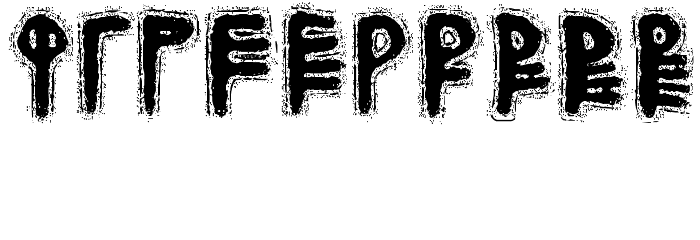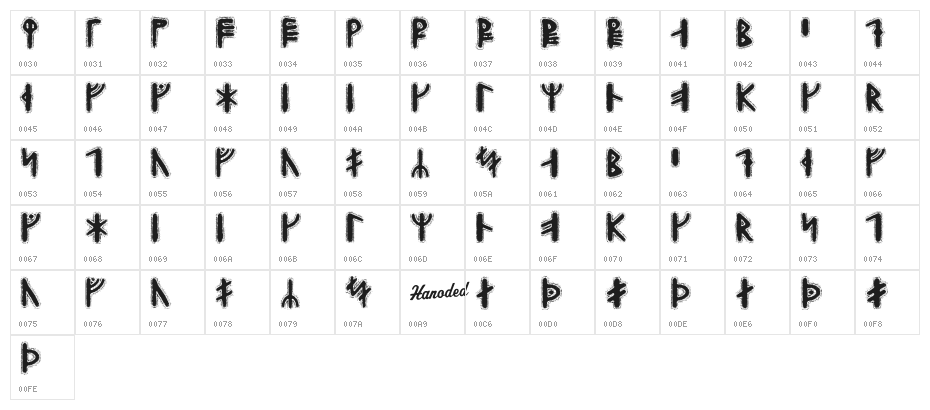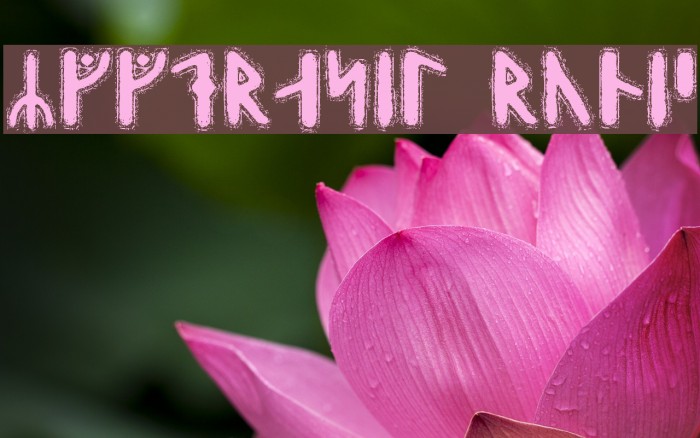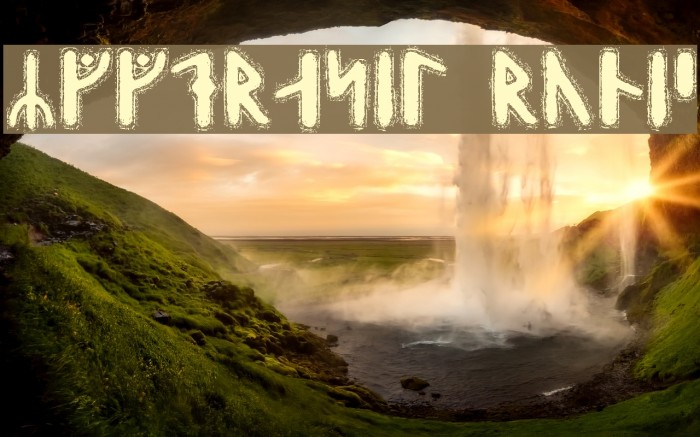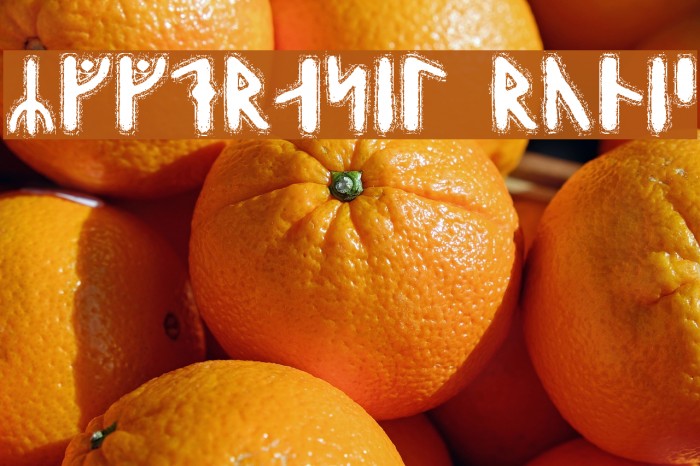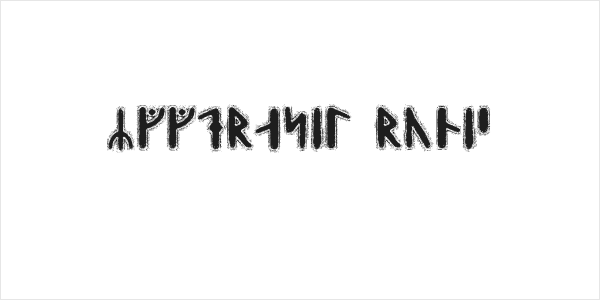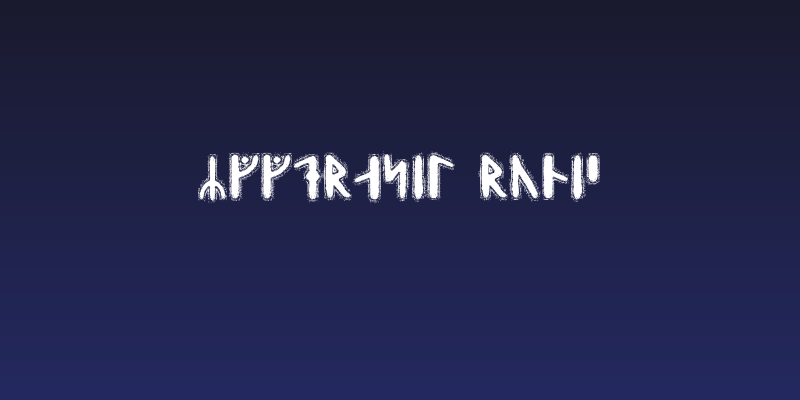
Yggdrasil Runic Font
Yggdrasil Runic Description
This font is a decorative typeface inspired by ancient runic alphabets, featuring bold, angular characters with a distressed texture that gives it an aged, mystical appearance. The characters are designed to resemble traditional runes, with sharp edges and unique symbols that evoke a sense of mystery and ancient lore. The font's rough, textured finish adds to its authenticity, making it ideal for projects that require a historical or fantasy theme. Each character is distinct, with variations in line thickness that contribute to its handcrafted look.
| Use Case | Logos, Headlines, Themed designs |
| Proposed Projects | Ideal for fantasy-themed designs, historical recreations, game titles, book covers, and themed event materials. |